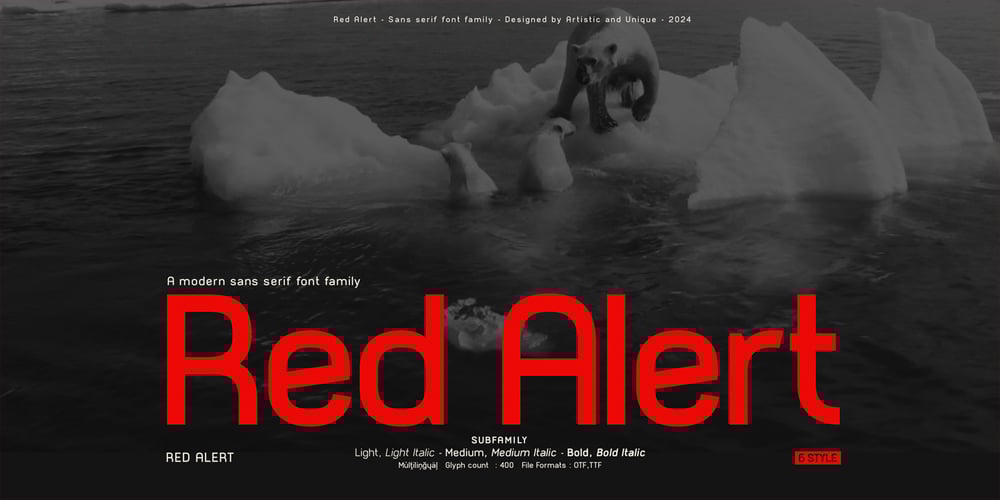
Red Alert Font Family was designed by Osman Taner Kucukgenc and published by Artisticandunique. Red Alert contains 6 styles and family package options. Red Alert -Sans serif font family – 6 Styles – Multilingual supports.It is designed to draw attention to the ever-worsening climate change and the problems it creates, as well as the reflection of modernism created by developing technology in different areas.Red Alert – Sans serif font family is a geometric – modern font with 6 styles and multilingual supports.The emotional integrity it creates due to its structure is suitable for use in science, technology, space and corporate design; In many languages, from print media to screen media. You can easily use the sans serif font feature in many areas.You can compose your text with normal characters and highlight headings with bold characters. It is functional in many sizes and environments, where you can use it as the main actor in powerful headlines.If you are looking for a font with these features, this sans serif font family may meet your needs.